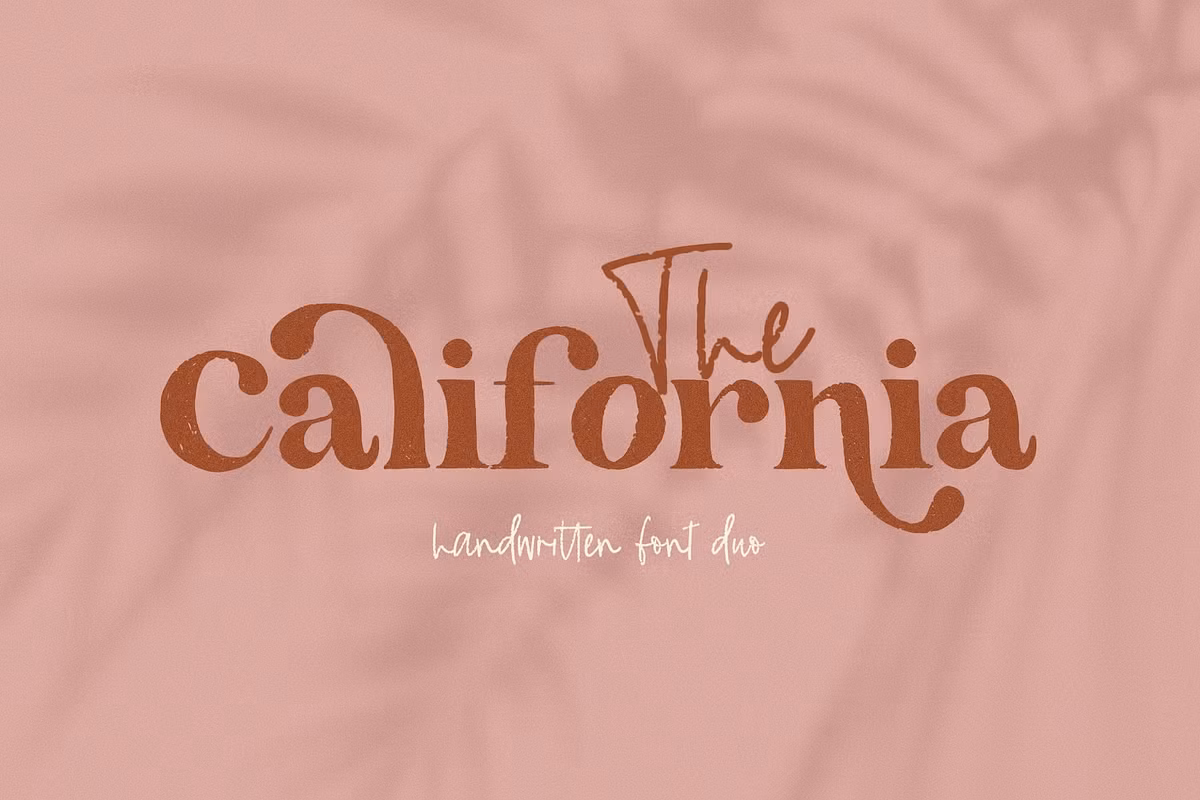
The California | Serif Font Duo Free Download is a chic and versatile typeface pair that brings together a classic serif with a modern flair, perfect for creating sophisticated and stylish designs. Ideal for branding, wedding invitations, magazine layouts, and upscale product packaging, this duo offers timeless elegance with a fresh, contemporary edge.
The California | Serif Font Duo Free Download gives designers the creative flexibility to mix refined serif letterforms with subtle contrasts and stylish details. Whether you're building a luxury brand identity or crafting editorial spreads, this font duo enhances your design with both personality and professionalism. Download it today and let your next project shine with the elegance of The California.